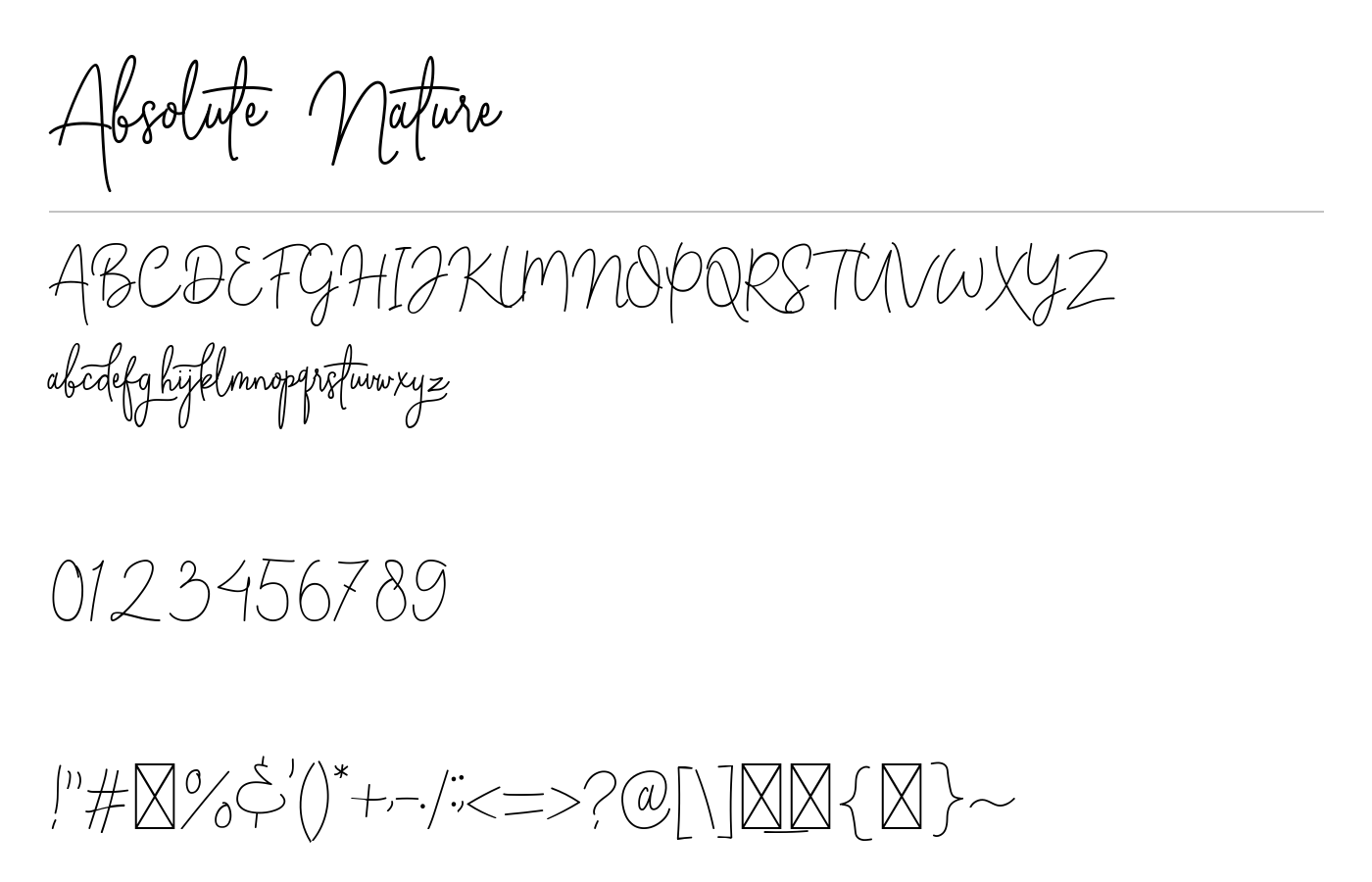
Absolute Nature is a delicate, handwritten script font characterized by its slender, tall letterforms and smooth, flowing strokes. It conveys a natural and elegant feel, making it ideal for personal branding, invitations, and creative projects that seek a graceful yet approachable style. Its thin lines and airy spacing add a refined, artistic touch perfect for designs that want to evoke authenticity and lightness.
Absolute Nature Font
About Absolute Nature Font